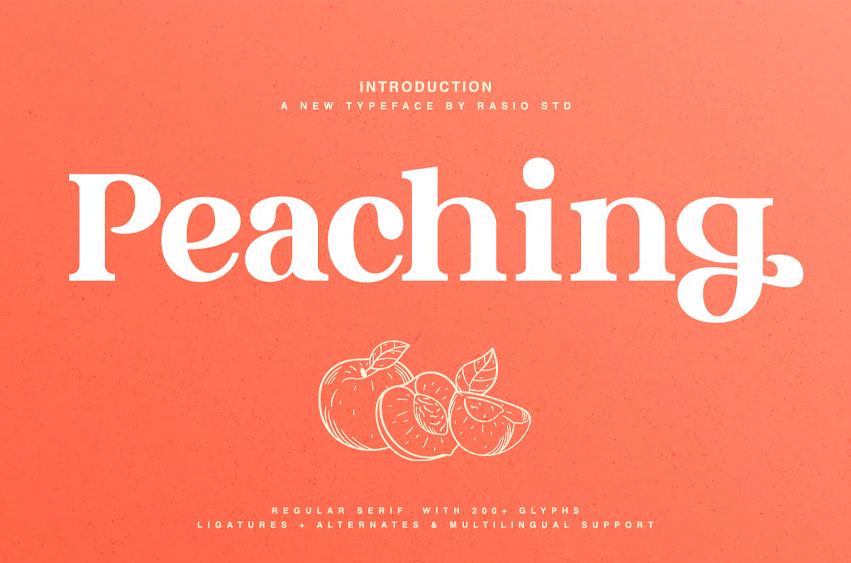
Peaching Font
Peaching Font is a sweet and charming serif typeface with a contemporary twist, this font comes with over 200 glyphs, including elegant ligatures, alternates, and multilingual support. With its soft curves, clean lines, and balanced proportions, Peaching evokes a sense of warmth and personality, perfect for adding a tender tone to your designs. This serif font features both uppercase and lowercase characters, numerals, punctuation, and beautifully crafted discretionary ligatures. Whether you’re creating brand identities, packaging, social media graphics, editorial content, or wedding invitations, Peaching offers a versatile and aesthetically pleasing option that stands out with subtle flair.
Relevance and Use Cases is perfect for a wide range of creative and commercial projects. Its soft and stylish design makes it ideal for wedding invitations, feminine brand identities, editorial spreads, product packaging, greeting cards, and digital promotions. The font’s character-rich glyph set and sweet flair also make it perfect for adding a delicate and emotional tone to personal or lifestyle designs.
Main Features:
• Ligatures & Alternate